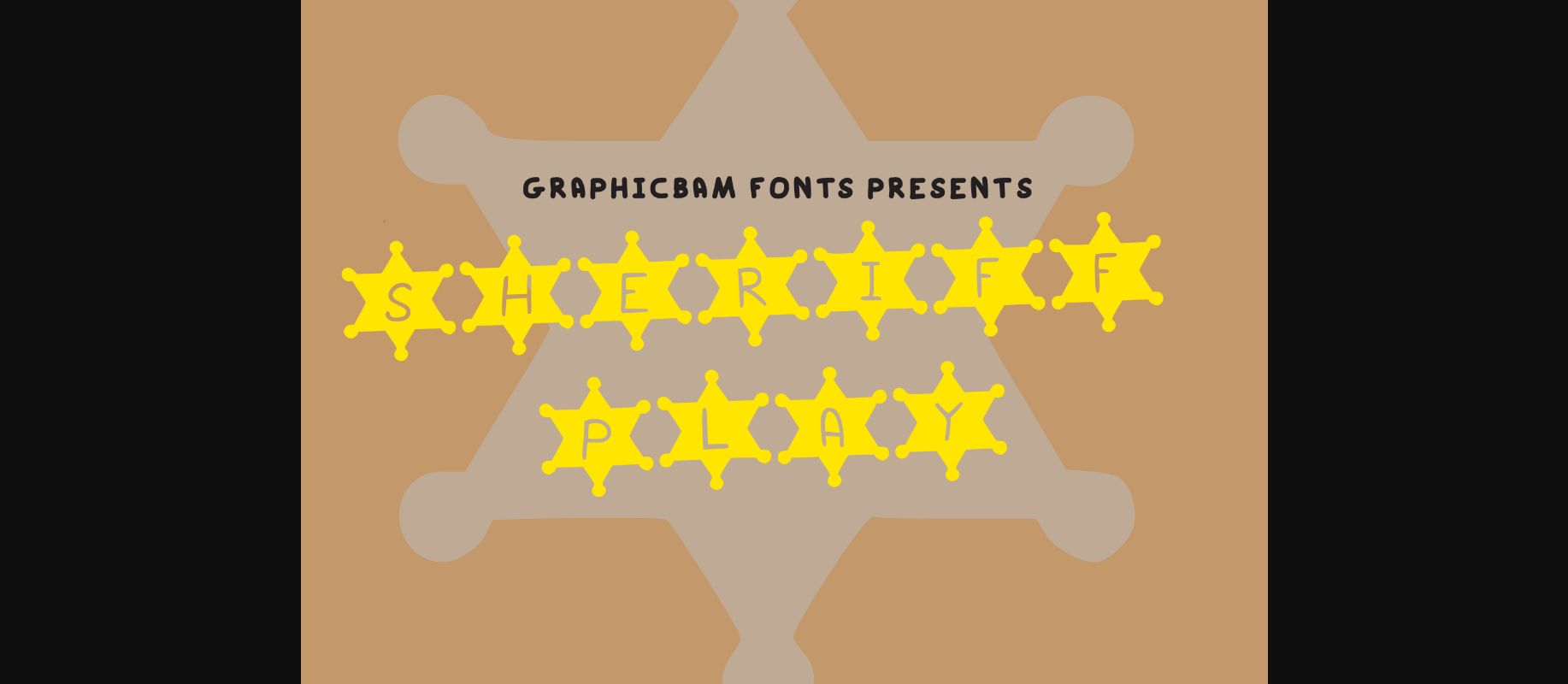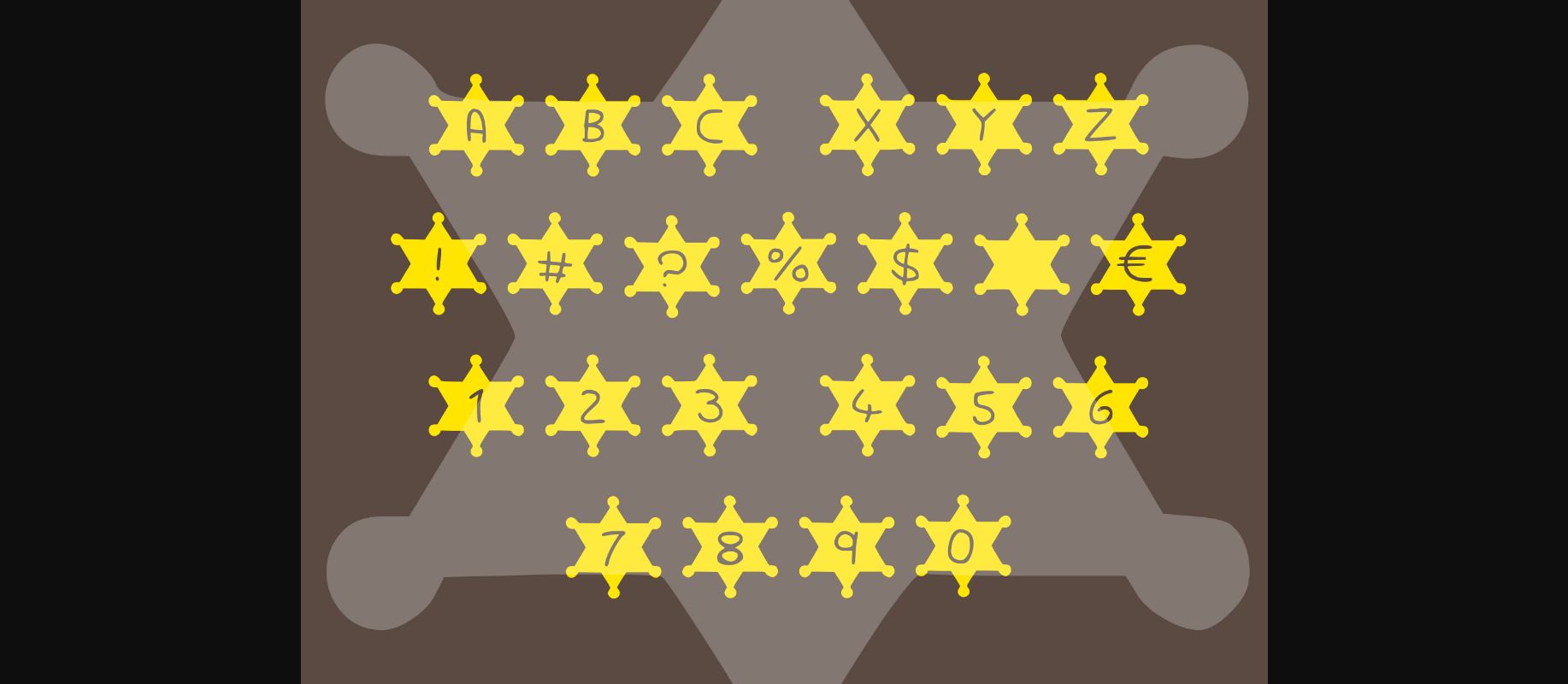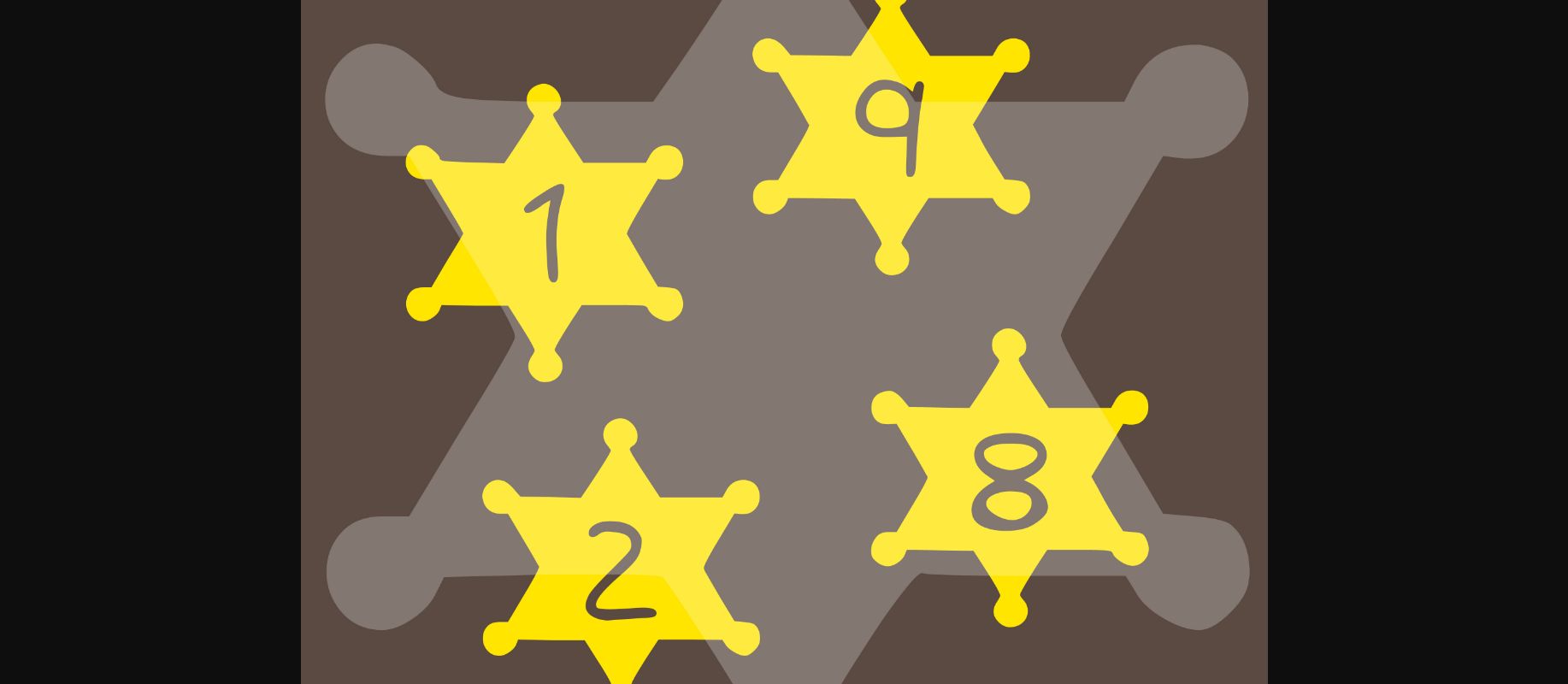
Sherrif Play Font
About Sherrif Play Font
Sherrif Play is a cool and incredibly unique decorative font. Whether you use it for cartoon related designs, children games or just any creation that requires a lovely touch, this font will be an amazing choice.